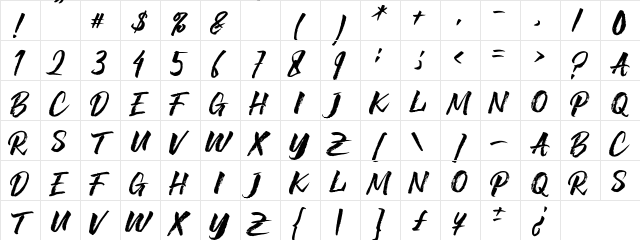
POWER ANGERS Regular
Design Context for POWER ANGERS Typeface
POWER ANGERS has the bold swagger of sports branding: strong, assertive letterforms designed to dominate headlines and jerseys alike.
Built for sports team identities, athletic apparel, event posters, and high-energy promotional material.
Pro Tip: POWER ANGERS thrives on contrast — try it large, bold, and tight against a clean background for maximum visual impact.